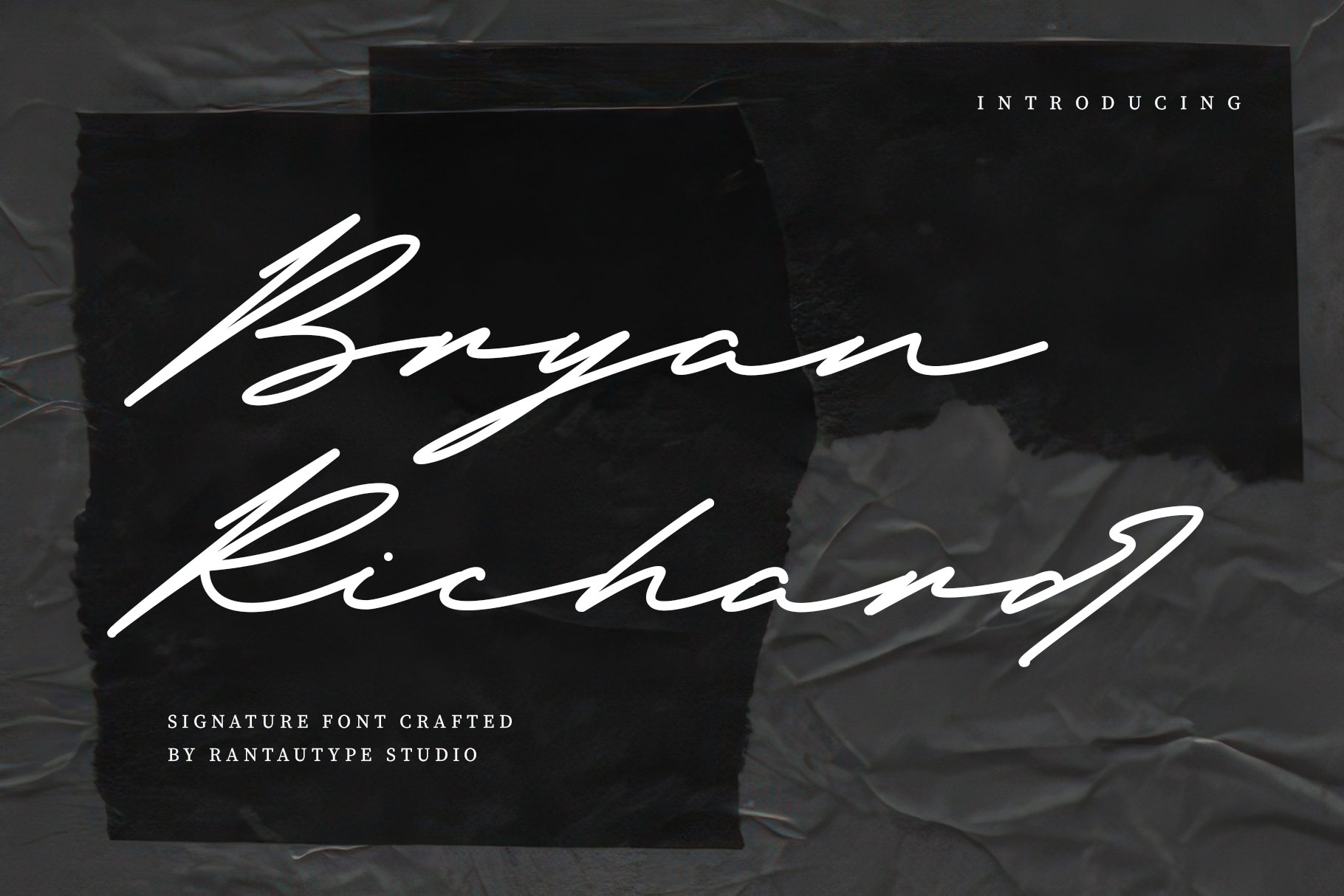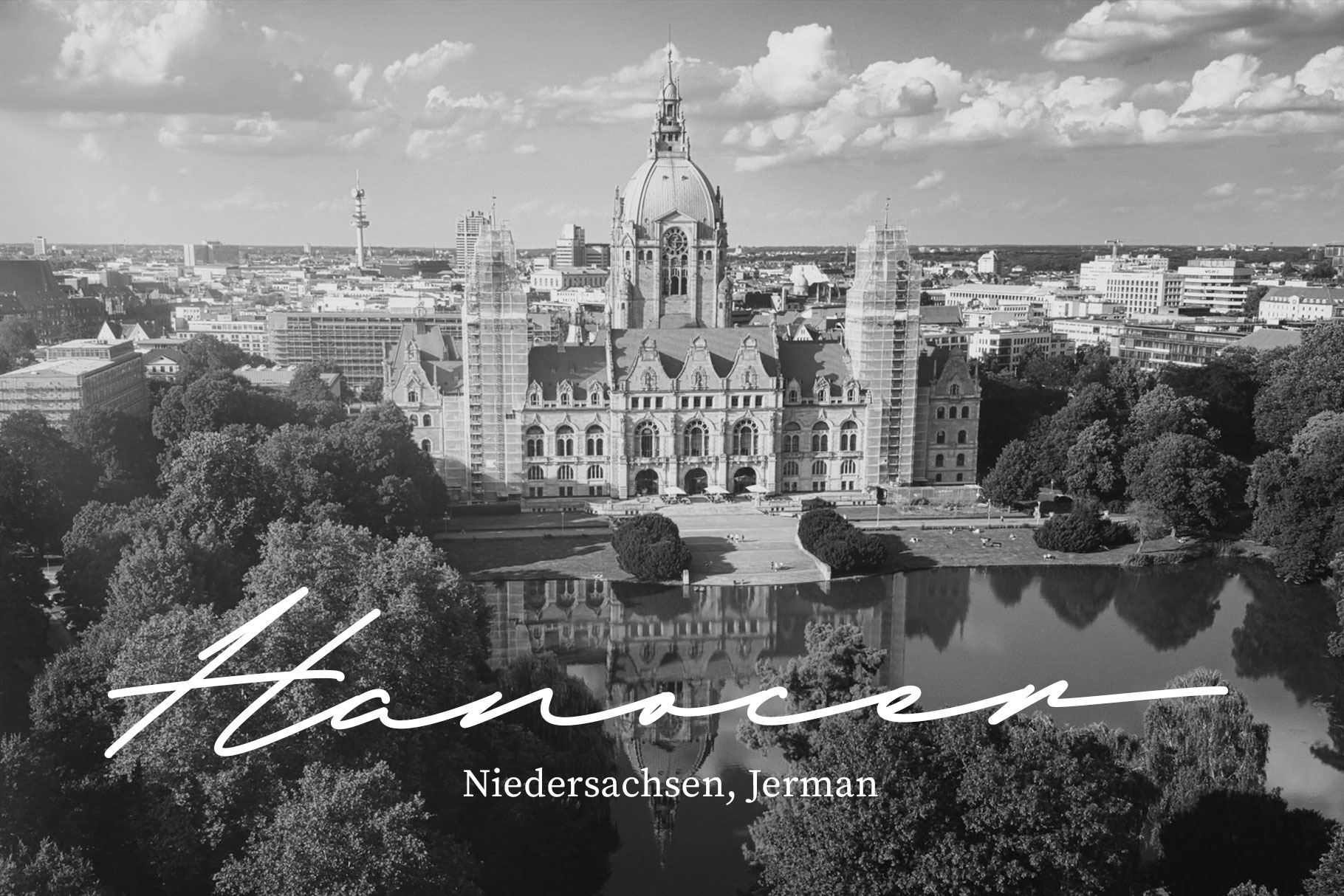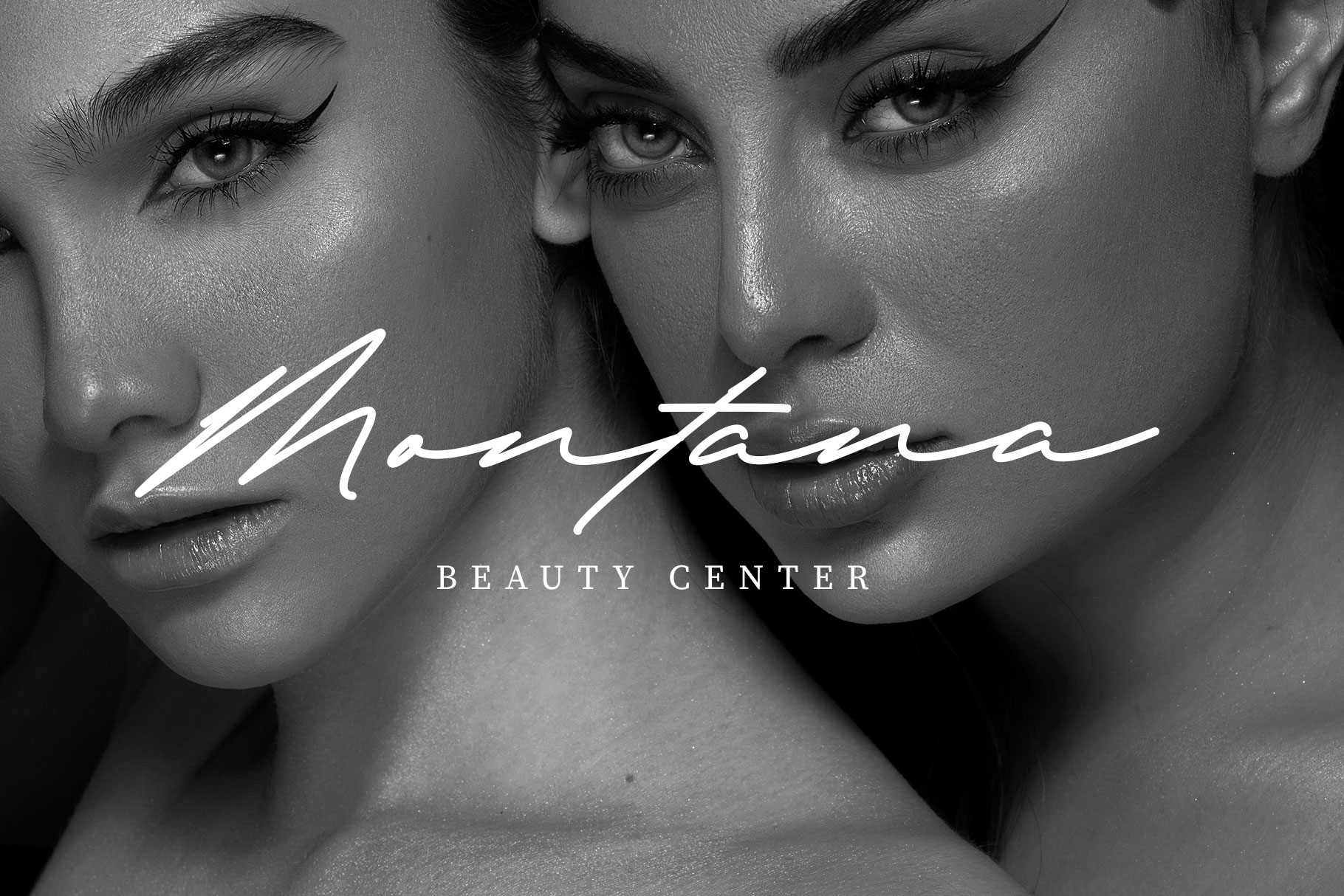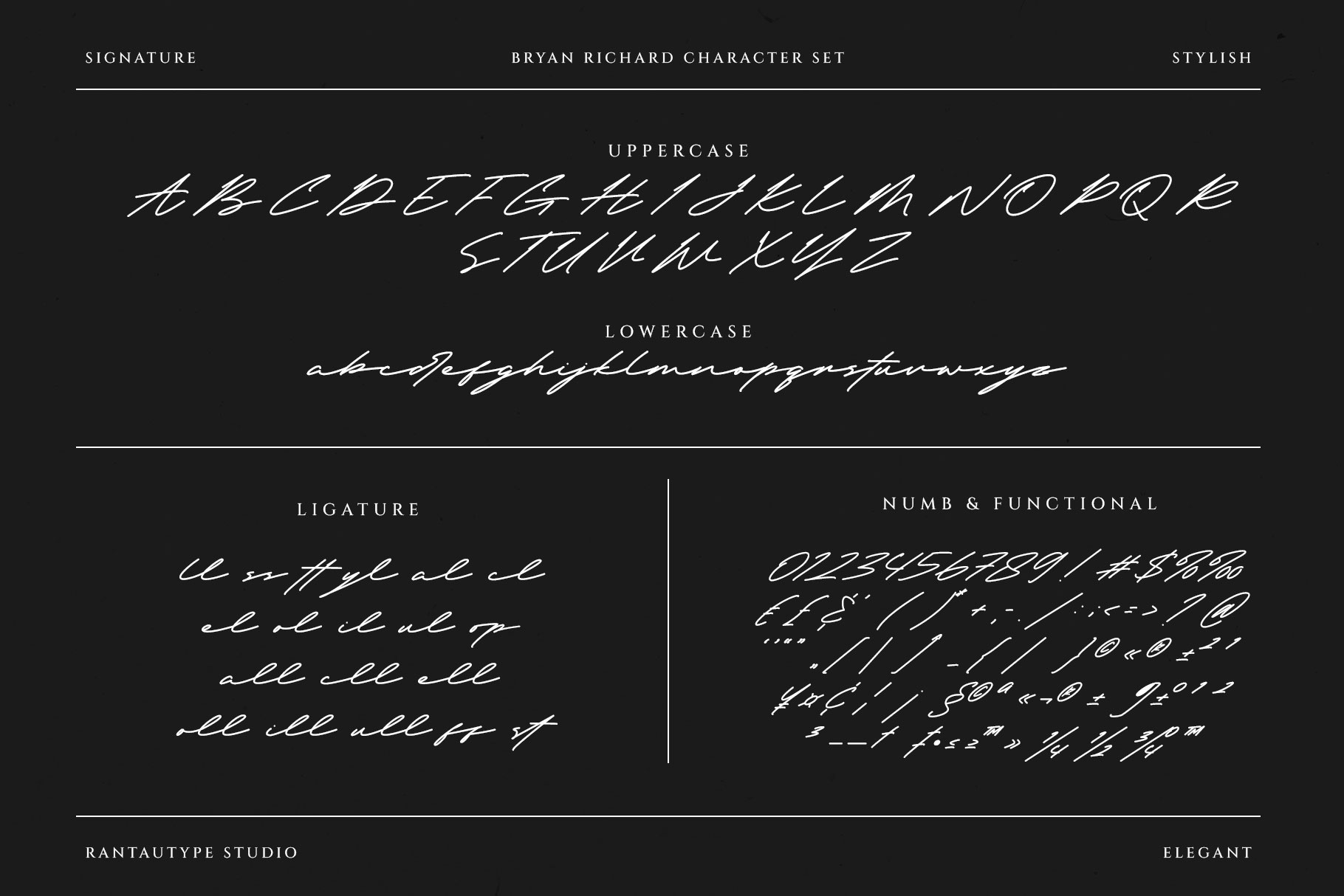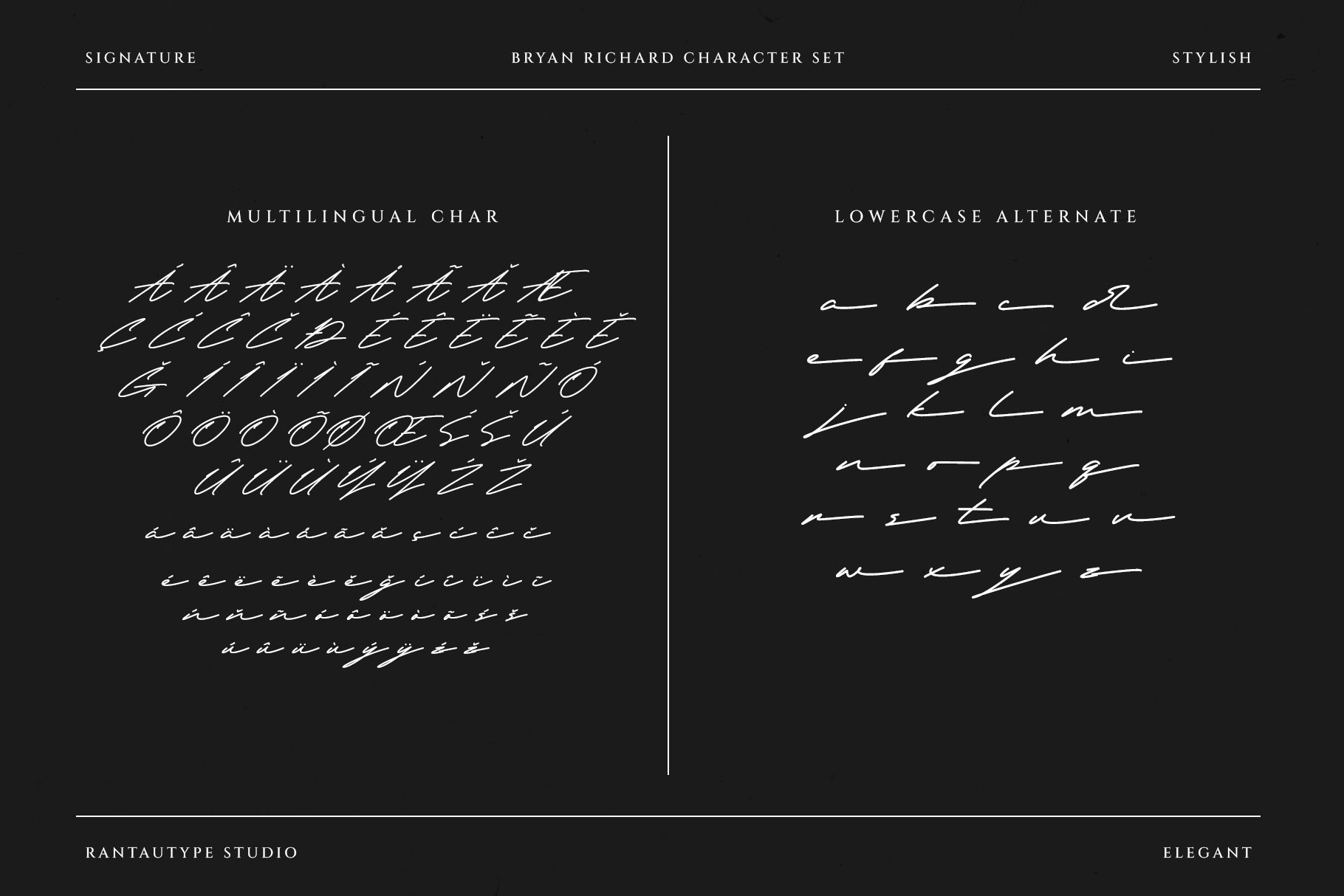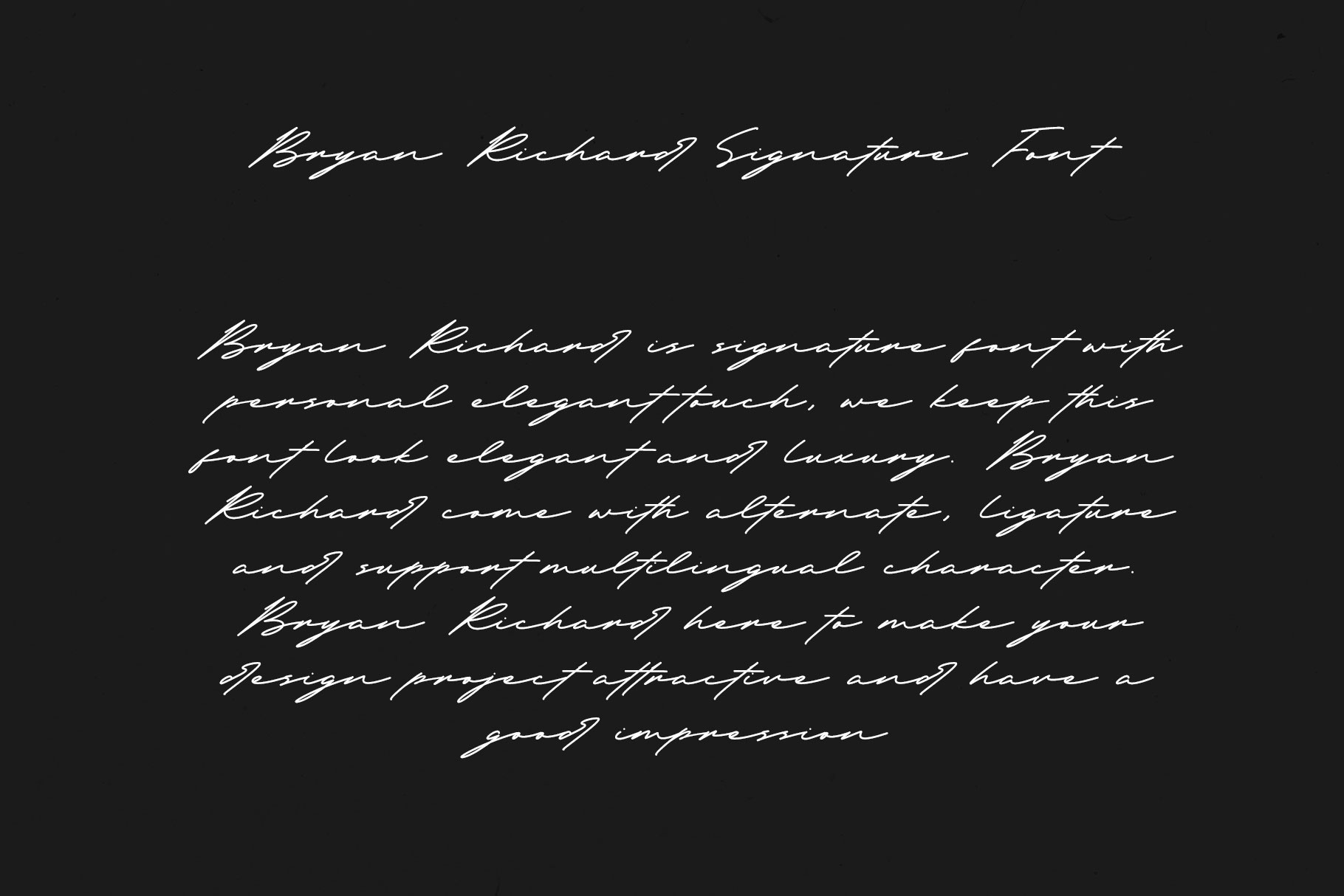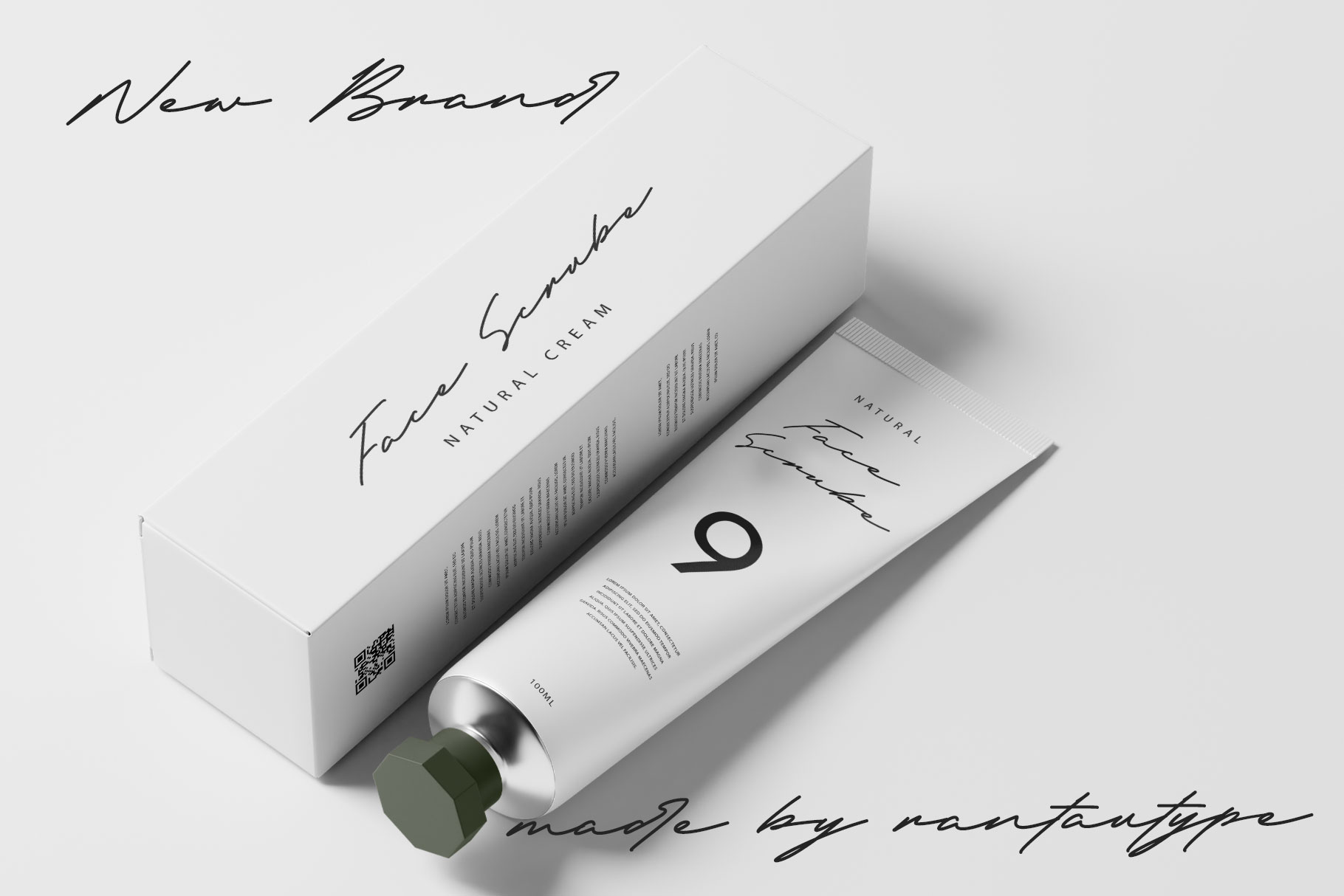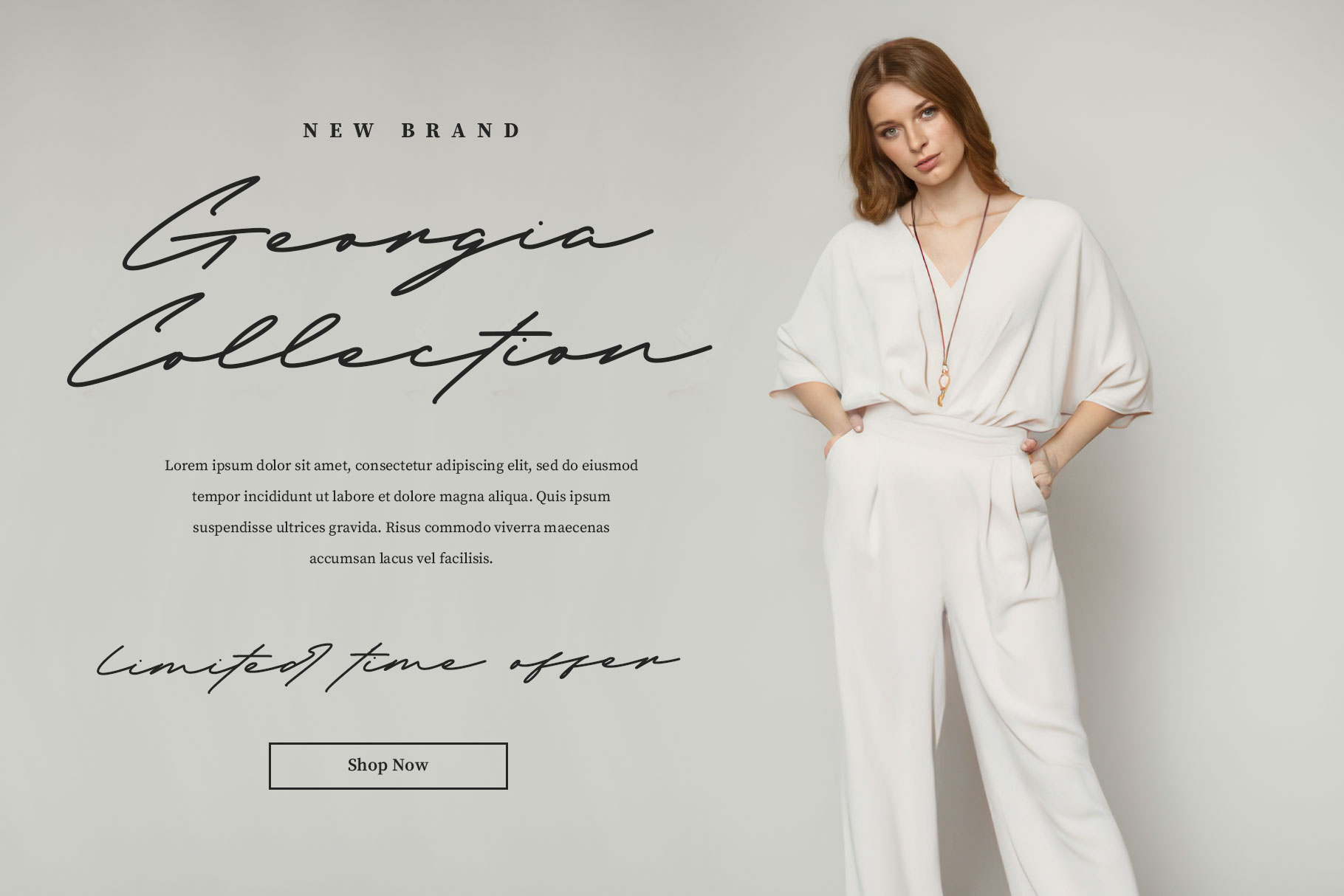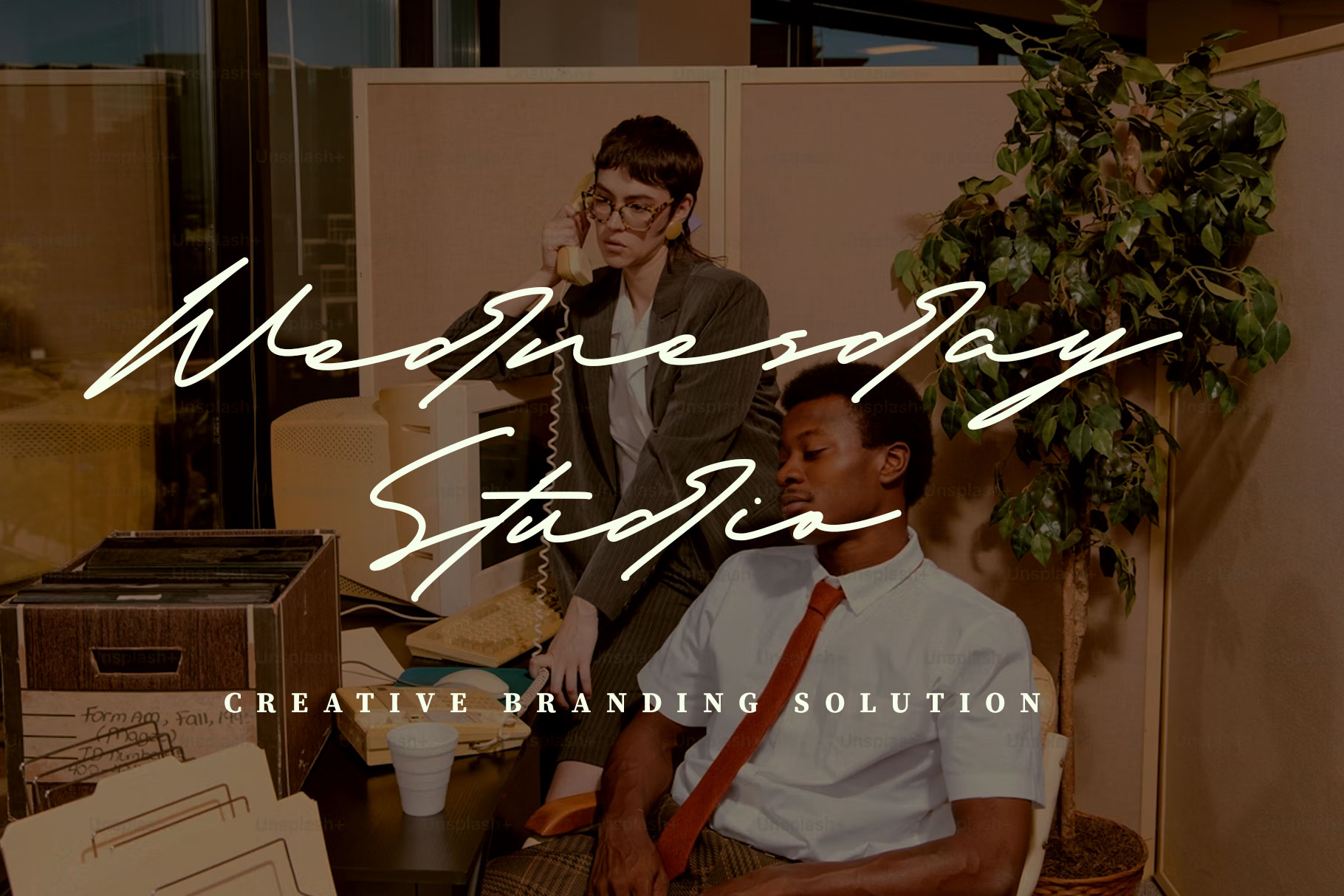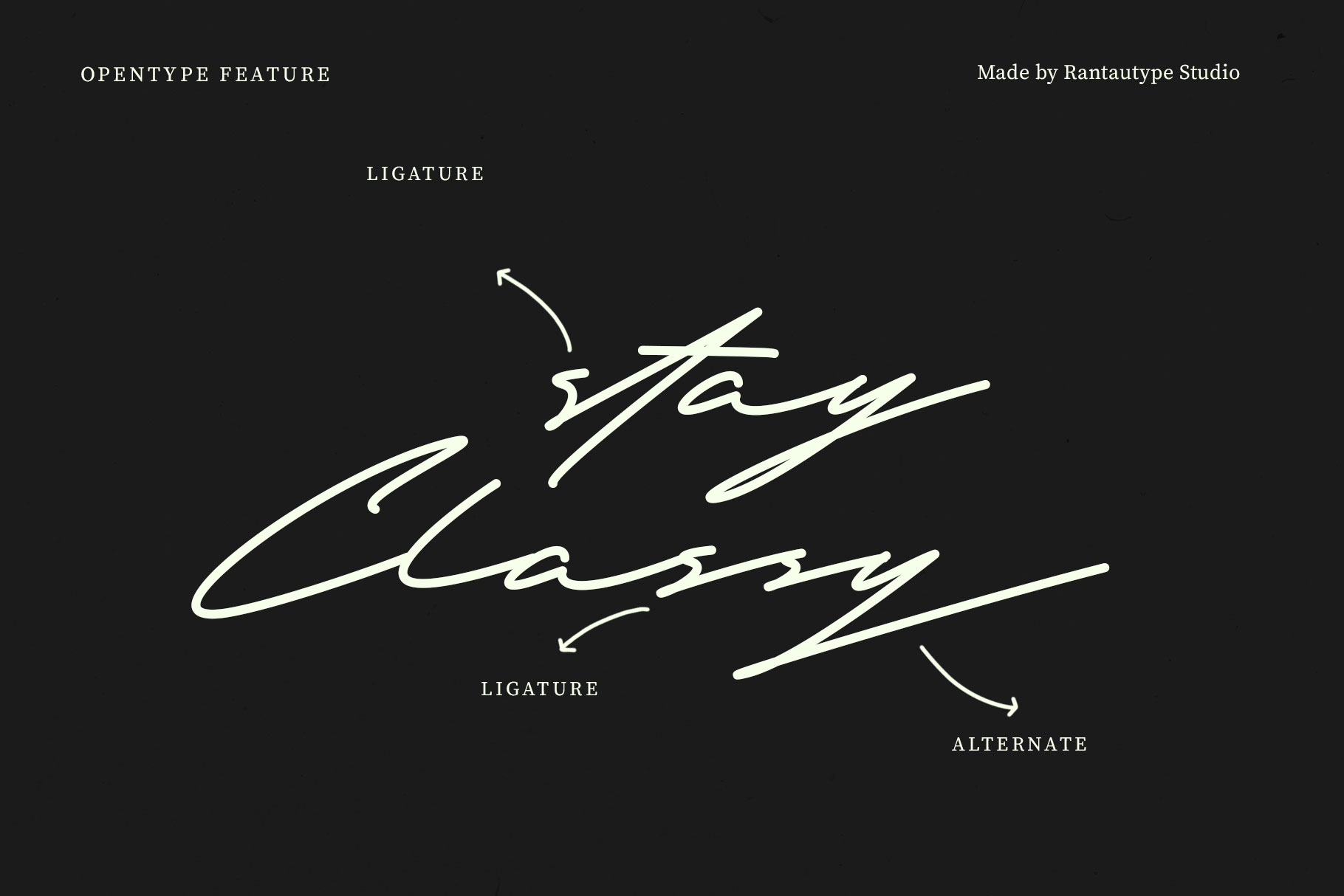
Bryan Richard Signature Font
Bryan Richard is signature font with elegant and luxury sense. Bryan Richard bring trend of stylish brand to signature visual font to make brand more stand out and eye catch. We keep this font look fashionable, luxury, elegant, classy and stylish.
Bryan Richard  is perfectly choice for any creative endeavor, chic, lifestyle design such as logos, title, watermark on photography, cover, branding, display and magazine, wedding event, corporate brand, quotes, album cover, business card, business project and many other design project with handwritten taste.